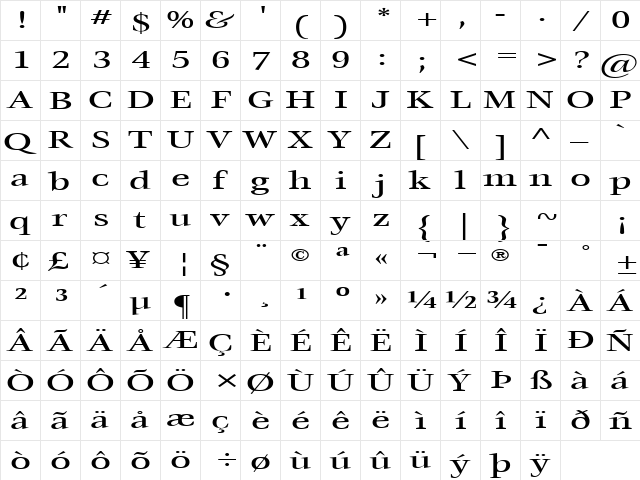
MatureExtended Regular
Design Context for MatureExtended Typeface
MatureExtended offers clean, dependable letterforms without strong stylistic allegiance, making it a practical choice for designers who need flexibility.